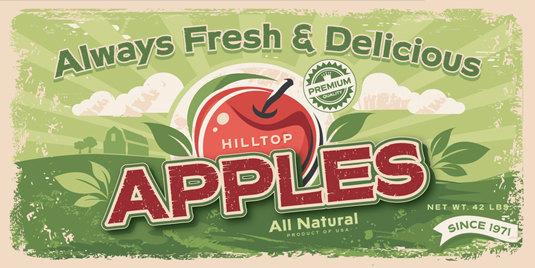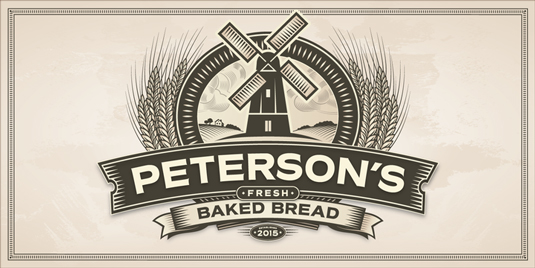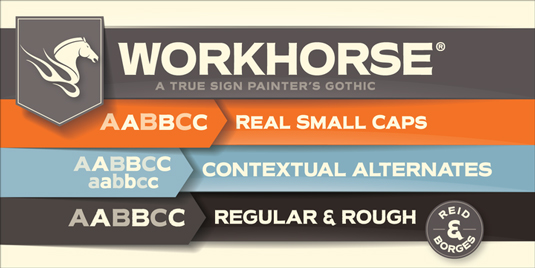
Font of the day: Workhorse
Every day we showcase the best fonts on the web. Today it's Workhorse by Greg Reid and Charles Borges de Oliveira.
Workhorse by Greg Reid and Charles Borges de Oliveira
Today's typeface of choice is Workhorse by Greg Reid and Charles Borges de Oliveira. Available from MyFonts, Workhorse is described as 'a sign painter's gothic, developed by master sign painter Greg Reid. Workhorse captures the true essence of hand lettering.
'From the tapered waists to the elegant snaps of the brush; these elements present a warmth unseen in today's mechanically stiff gothics. Greg Reid and Charles Borges de Oliveira collaborated to bring this truly one of a kind typeface to fruition'.